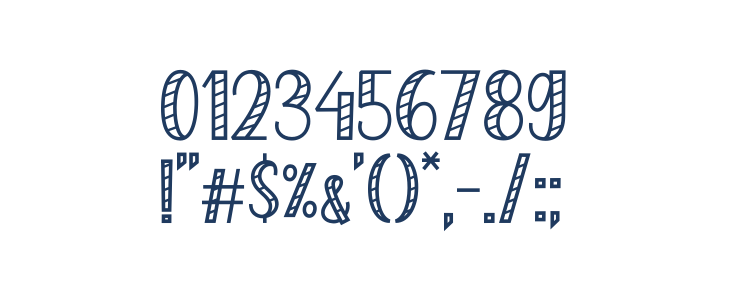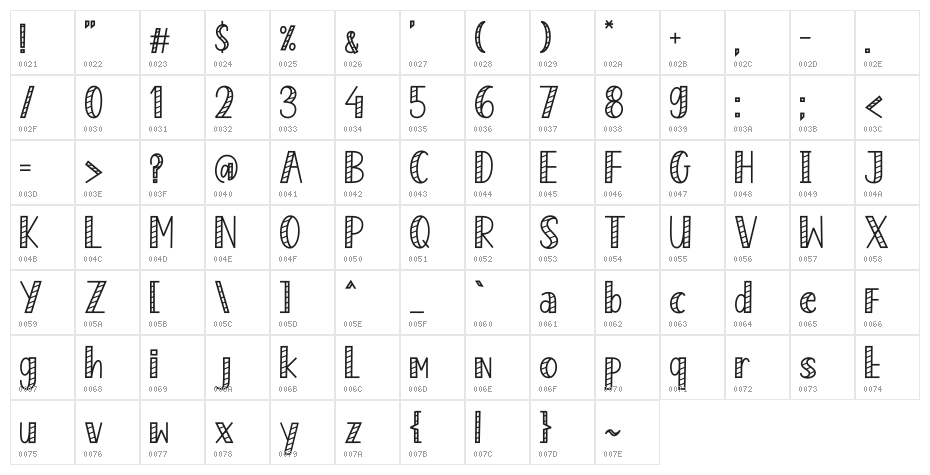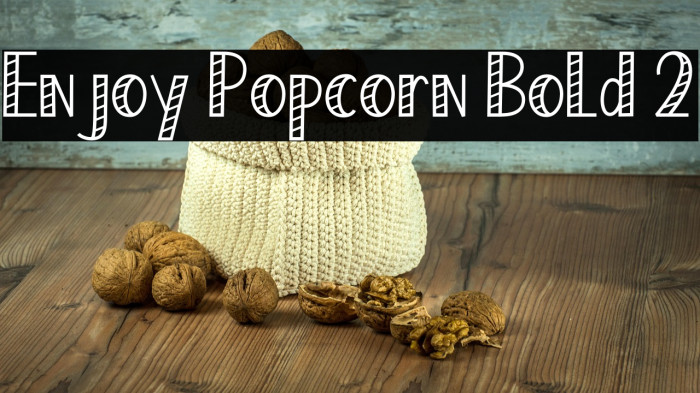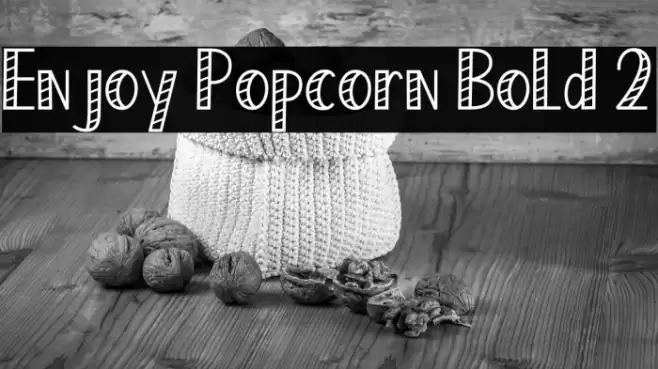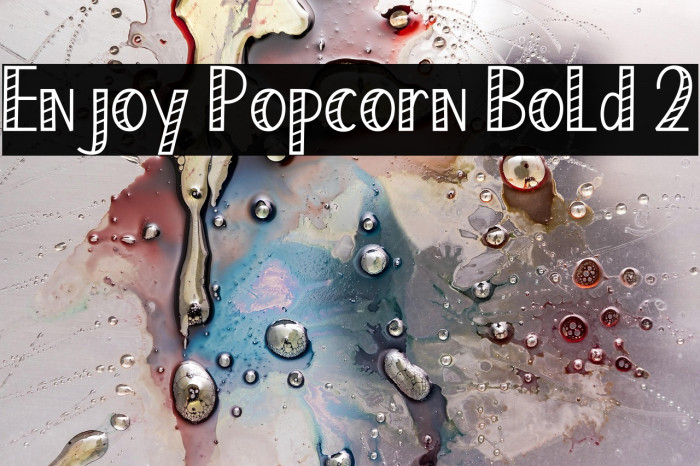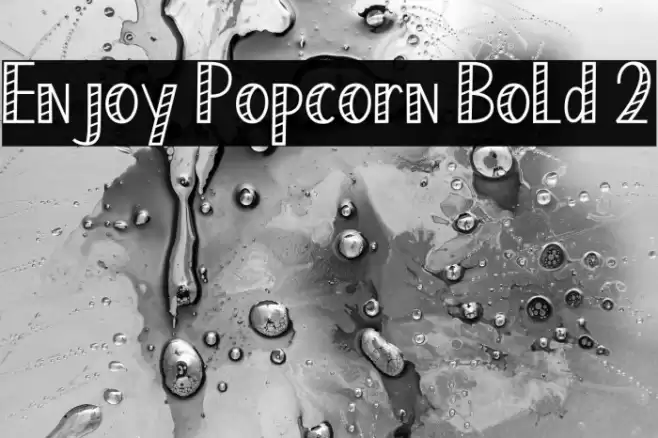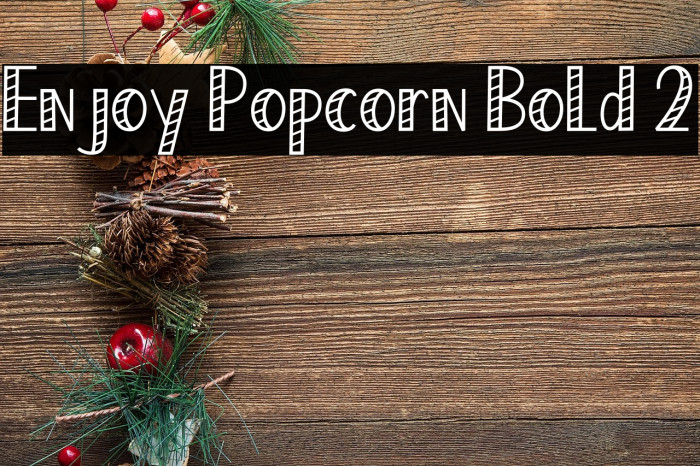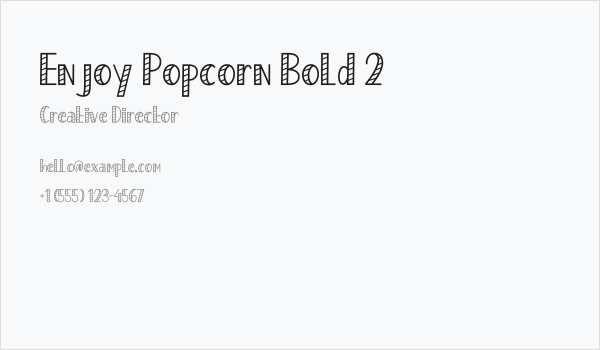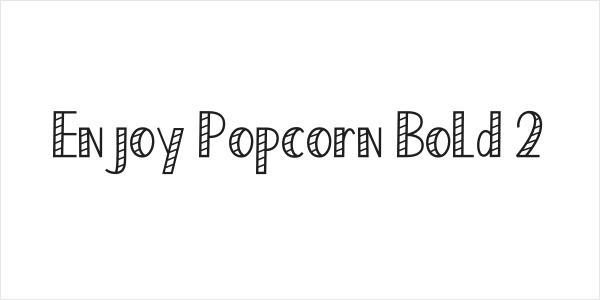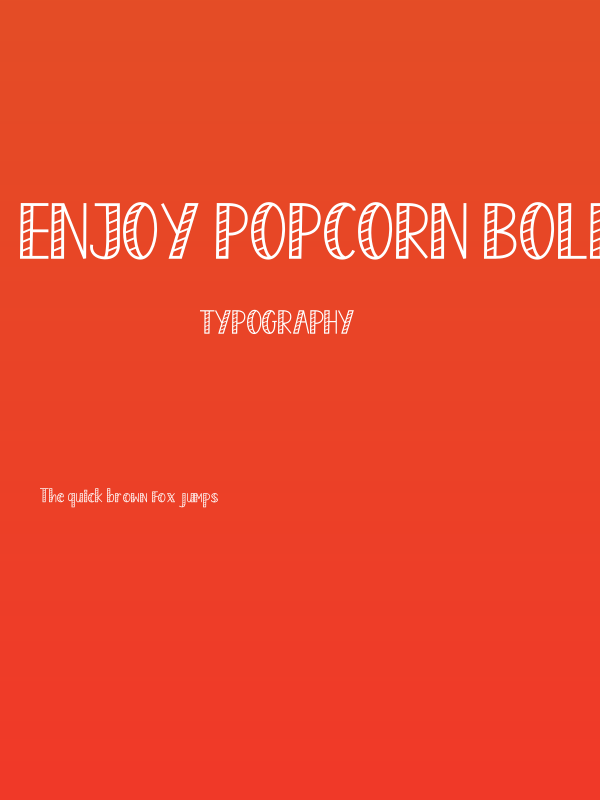
Enjoy Popcorn Bold 2 Font
Enjoy Popcorn Bold 2 Description
This playful and whimsical font features bold, hand-drawn letters with a unique striped pattern filling each character. The uppercase and lowercase letters maintain a consistent style, with rounded edges and a slightly irregular shape that adds to its charm. Numbers and special characters follow the same design, ensuring a cohesive look across all text. The font's decorative nature makes it stand out, perfect for projects that require a fun and engaging aesthetic.
| Proposed Projects | Ideal for children's books, party invitations, playful branding, and creative posters. |